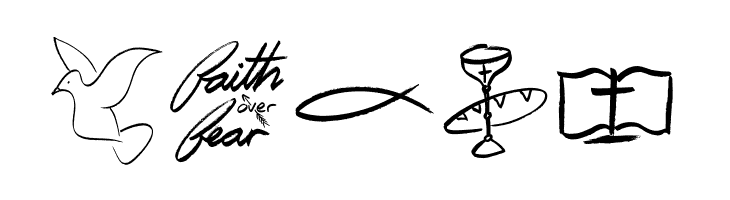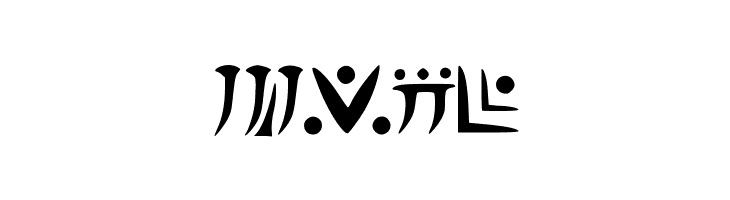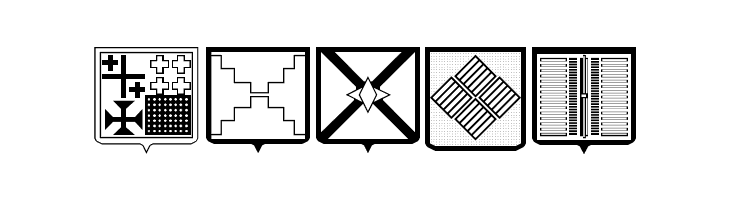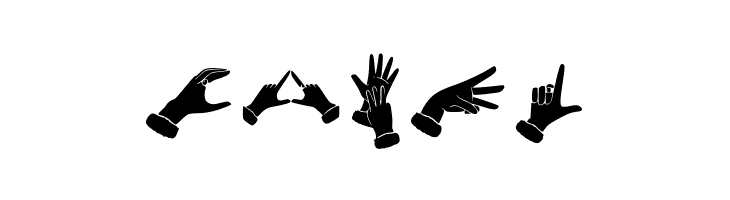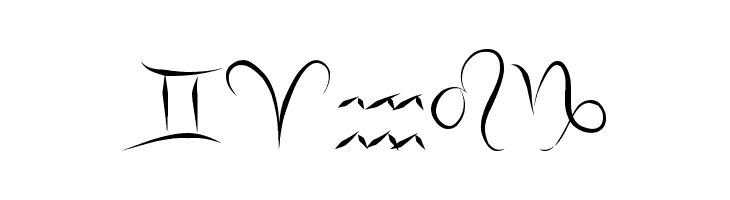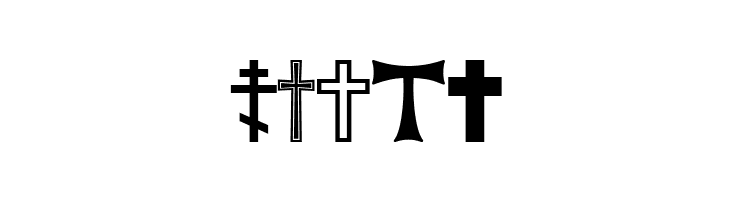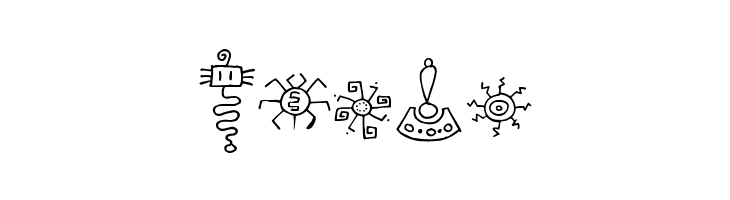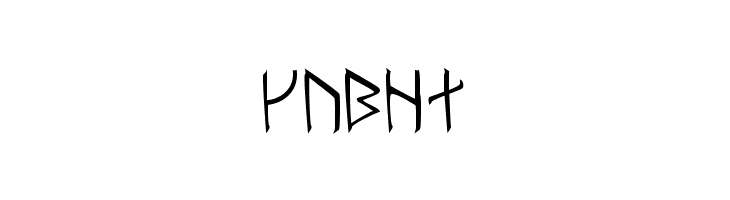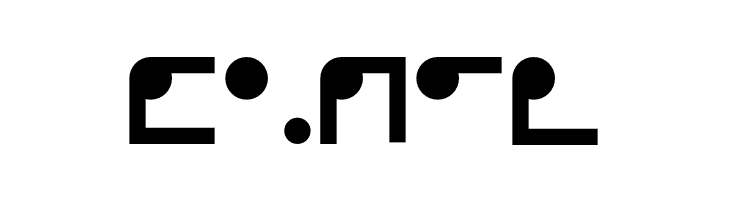
A collection of Christian-themed designs with handwritten and decorative elements.
A decorative and abstract typeface with bold strokes and unique shapes.
A display font of illustrated fantasy shield icons.
A unique set of hand sign representations for communication.
A collection of stylized zodiac symbols with unique curves and lines.
A display font composed entirely of diverse cross and geometric symbols.
Abstract, decorative font with intricate, whimsical glyphs.
A bold, runic-style font with geometric, angular characters and moon phase symbols.
A decorative, abstract font with geometric shapes and dots, evoking a futuristic or alien aesthetic.